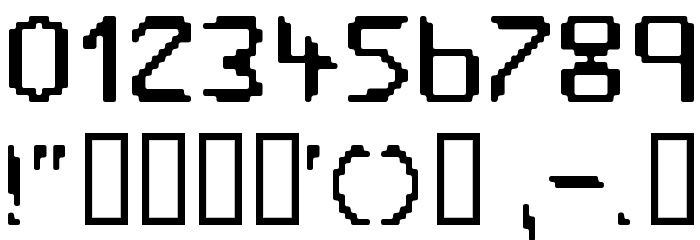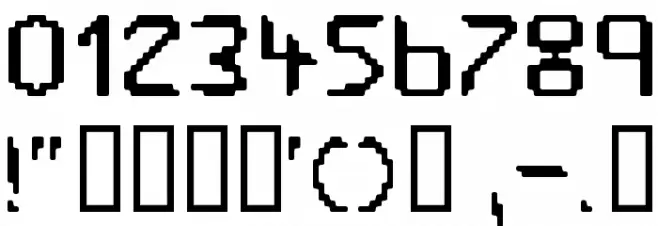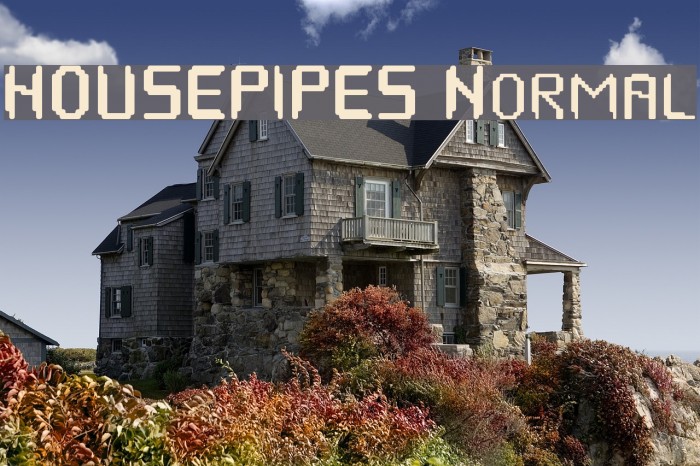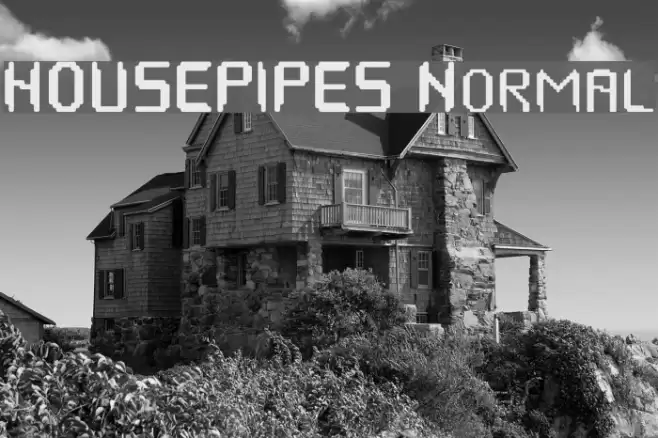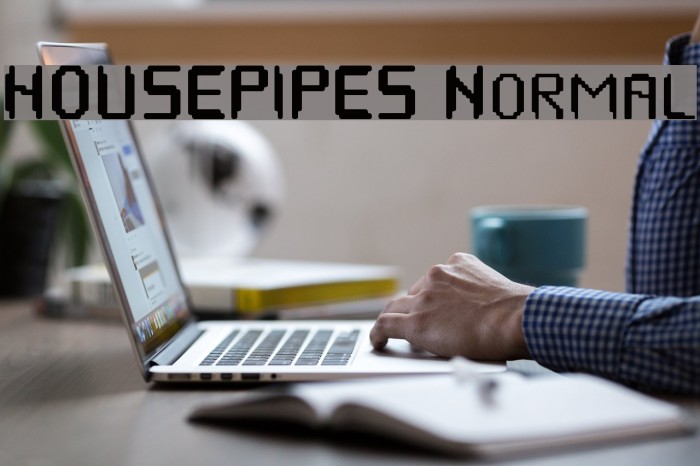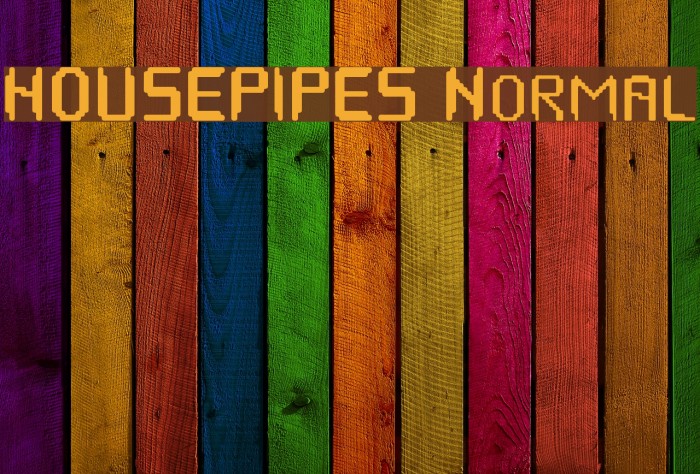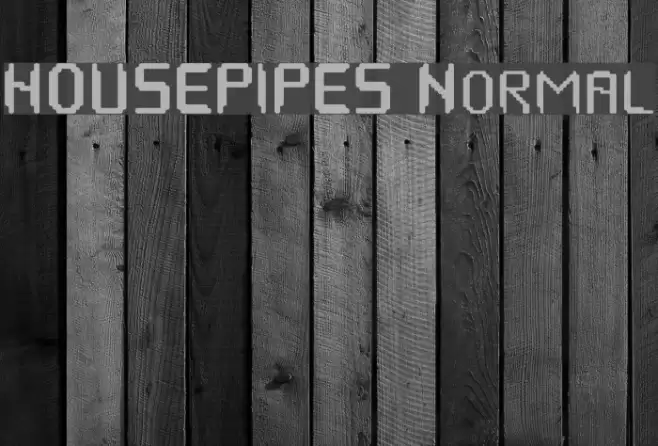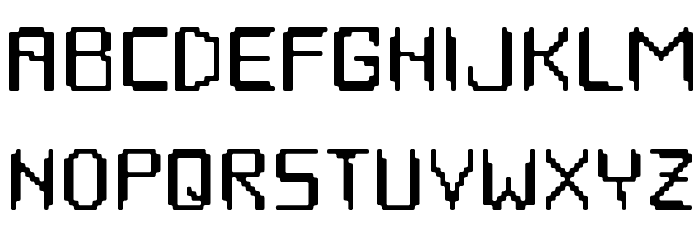
HOUSEPIPES Normal Font
HOUSEPIPES Normal Description
This font features a geometric, blocky design with a pixelated aesthetic reminiscent of early digital displays. The characters are uniformly structured, with consistent stroke widths and sharp angles, giving it a modern, tech-inspired look. The uppercase and lowercase letters maintain a uniform height, enhancing readability while preserving the font's distinctive style. The numerals and special characters follow the same design principles, ensuring a cohesive appearance across all glyphs. This font is ideal for projects that require a retro or digital theme, providing a unique visual impact.
| Proposed Projects | Ideal for digital art, retro-themed designs, video game interfaces, and tech-related branding. |